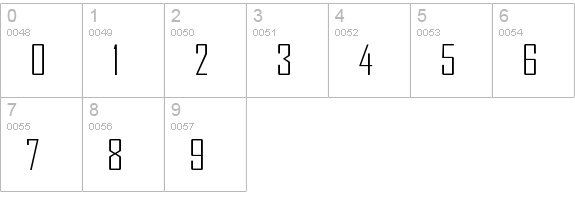
AgencyFB-Light Font Details
AgencyFB-Light is a refined, elegant variant in the AgencyFB typeface family \xE2\x80\x94 well suited to elegant body text, refined sub-headings, and luxury branding.
AgencyFB-Light is a sleek and modern font that exudes sophistication and professionalism. With its clean lines and elegant design, this typeface is perfect for a wide range of design projects, from branding to editorial layouts. The light weight of the font adds a touch of delicacy and refinement, making it ideal for conveying a sense of elegance and style. What makes AgencyFB-Light even more appealing is that it is available for free download at FontsMarket.com. This means you can easily access this high-quality font without any cost, making it a valuable resource for designers and creatives looking to elevate their projects with a touch of class. Don't miss out on the opportunity to enhance your designs with the timeless beauty of AgencyFB-Light – download it for free today!